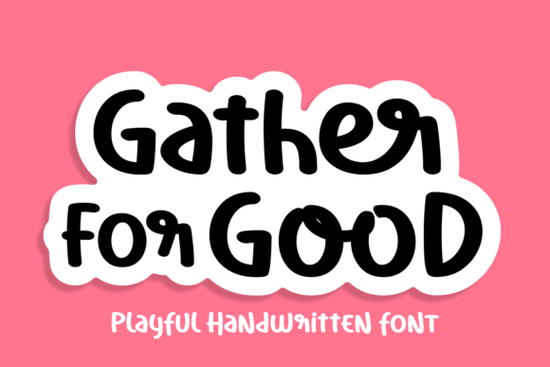
If you’re looking for a handwritten font that feels warm, whimsical, and just a little bit magical, the Gather of Good Font Font might be exactly what your next project needs. It’s got that friendly, hand-sketched charm that works whether you’re designing greeting cards, branding a small shop, or illustrating a children’s storybook. The strokes feel organic like someone sat down with a favorite pen and just started doodling ideas full of joy.
This font isn’t stiff or overly polished. That’s the point. It’s meant to bring personality into your work without overpowering it. You’ll find it especially handy if you’re creating content for kids, wellness brands, craft fairs, or anything that leans toward handmade or heartfelt vibes. And because it’s so versatile, you won’t need to switch fonts every time you jump from Instagram stories to printable wall art.
What kinds of projects does this font work best for?
Here’s where Gather of Good really shines:
- Social media graphics Think quote posts, seasonal promos, or behind-the-scenes peeks that feel personal.
- Children’s books or activity sheets The playful curves and uneven baseline make it feel like part of the illustration.
- Small business branding Perfect for bakeries, boutiques, or handmade goods where warmth matters more than formality.
- Printables and planners Use it for section headers, motivational quotes, or calendar accents.
- Craft and POD designs T-shirts, mugs, tote bags anywhere you want text to feel inviting rather than corporate.
If you’ve used fonts like Garnesline or Daddy Heart before, you’ll recognize that same cozy, human touch but Gather of Good has its own rhythm. It’s slightly bouncier, with more variation between letters, which helps it stand out even at smaller sizes.
How does it pair with other fonts?
You don’t need to overthink pairing it. Because it’s so casual, it plays nicely with clean sans-serifs or simple serifs. Try putting it alongside something like Adorable Notebook for a double dose of charm, or balance it with a minimalist typeface if you want contrast. Avoid pairing it with other highly decorative scripts that can get visually noisy.
A quick tip: When using it for logos or headlines, leave a little extra breathing room around the letters. The natural irregularity means tight kerning can look cluttered. And if you’re printing on textured paper or fabric, those slight imperfections will actually enhance the handmade feel.
One thing to note: Because it’s a script font with connected letters, not every character flows seamlessly into the next by default. That’s intentional it mimics real handwriting. But if you need smoother connections for certain words, most design programs let you adjust glyph spacing manually. Or check if alternate characters are included (they often are).
How does it compare to similar playful script fonts?
If you’ve browsed the script category, you’ve probably seen The Summer Pinch which has a beachy, carefree vibe or Adorable Notebook, which leans sweeter and more delicate. Gather of Good sits right in the middle: not too wild, not too tidy. It’s got enough structure to stay readable, but enough quirk to feel alive.
It also scales well. Some handwritten fonts turn muddy or lose personality when shrunk down. This one holds up useful if you’re making stickers, labels, or packaging where space is limited.
Fonts like this aren’t about perfection they’re about personality. If your project needs to feel welcoming, imaginative, or gently nostalgic, Gather of Good Font Font brings that energy without trying too hard. Sometimes the best designs come from tools that feel like they were made by hand because in spirit, they were.